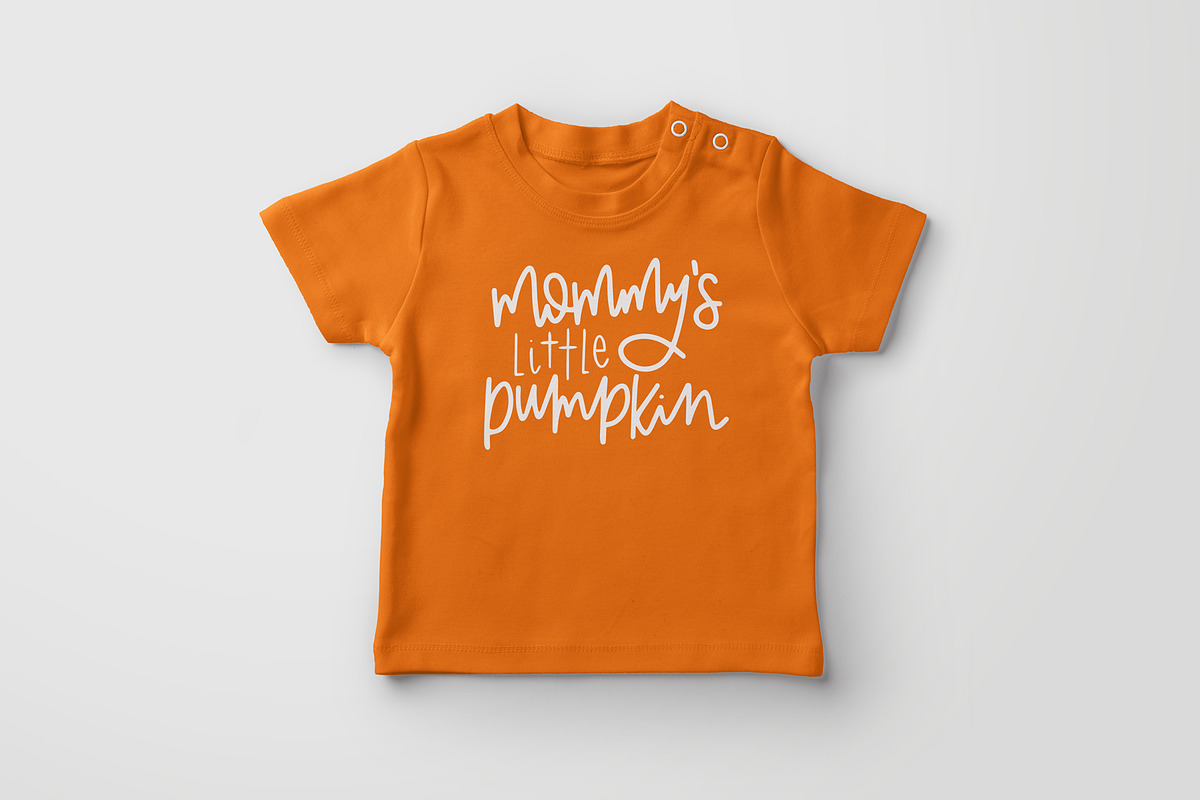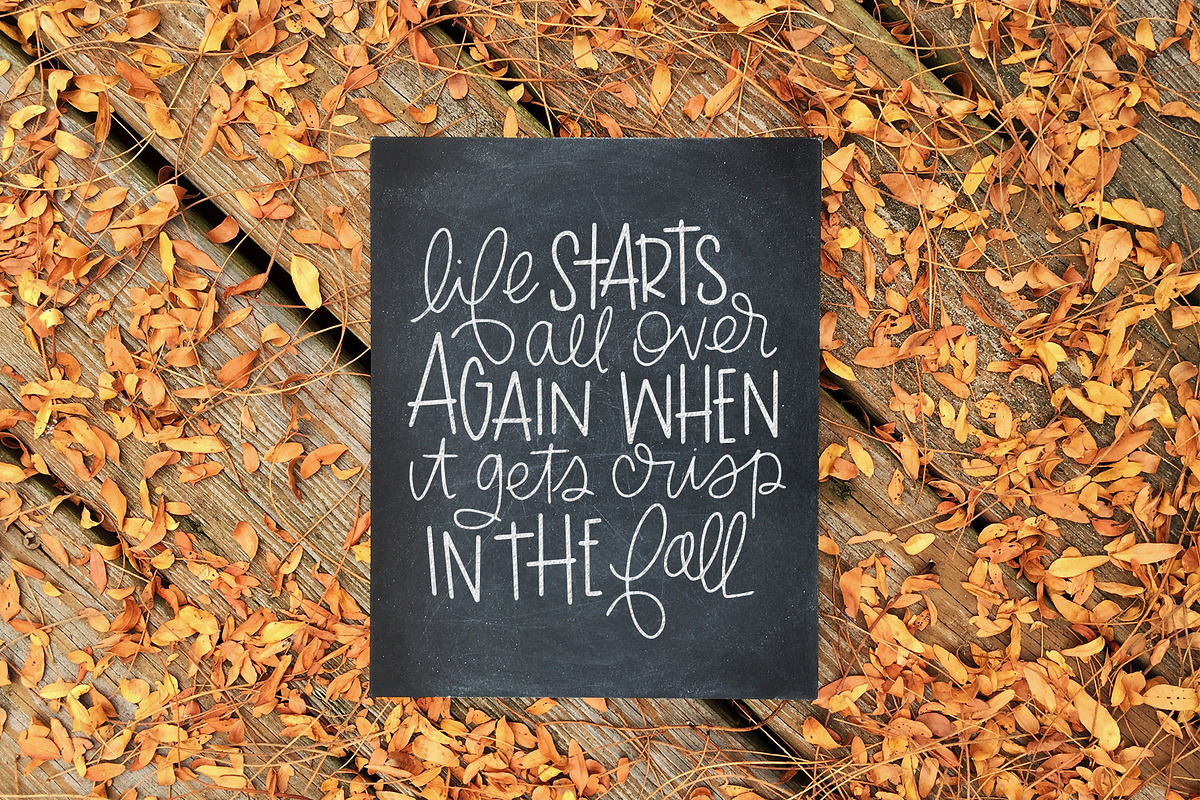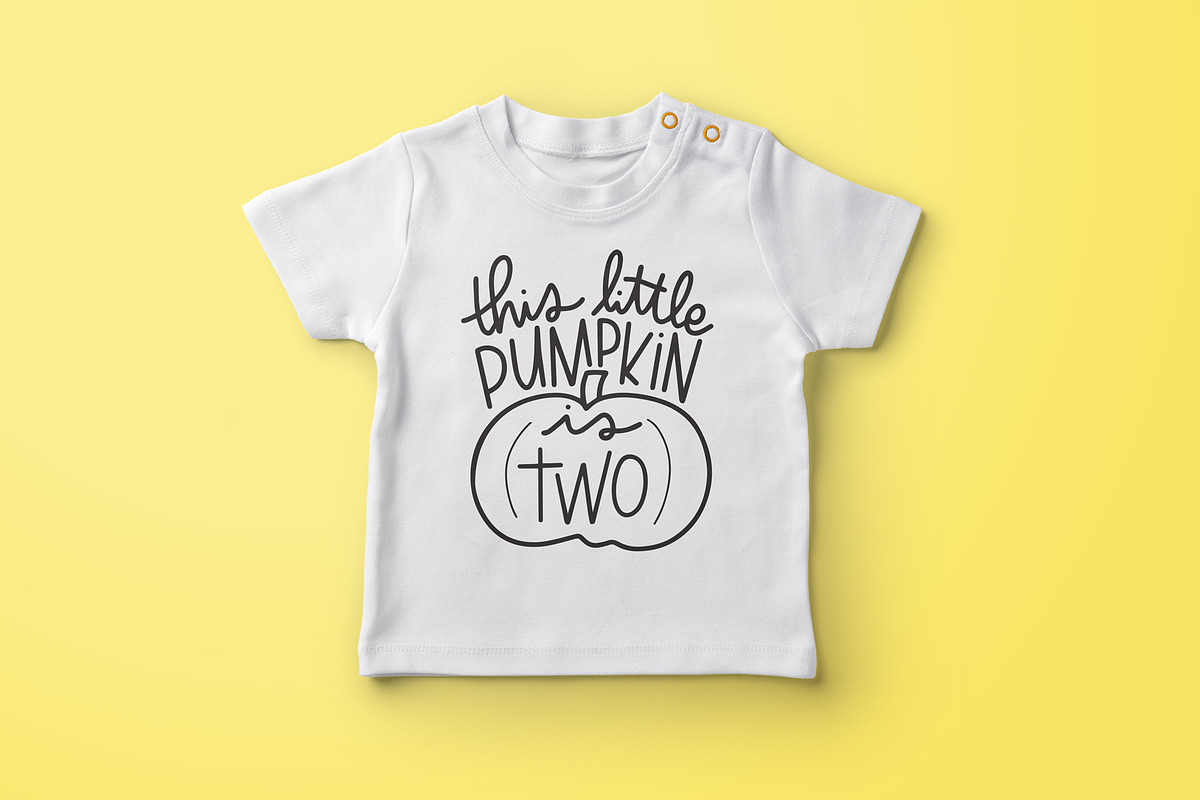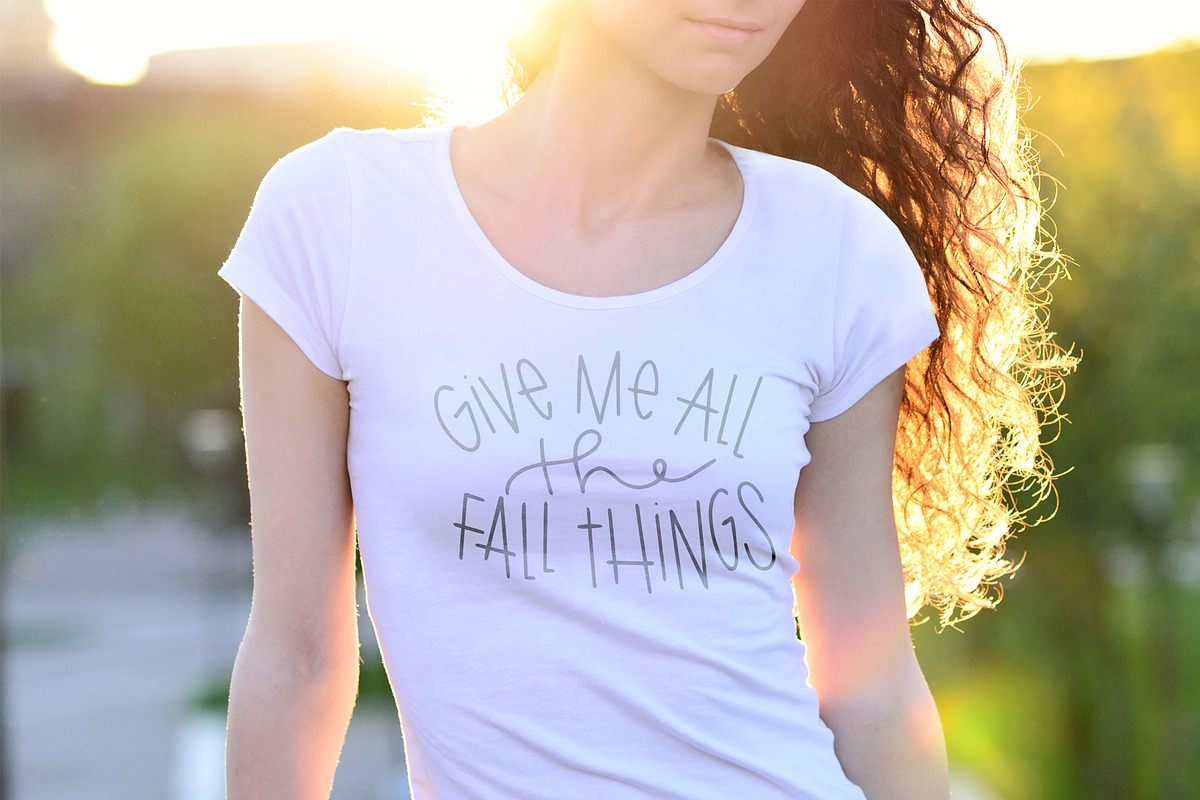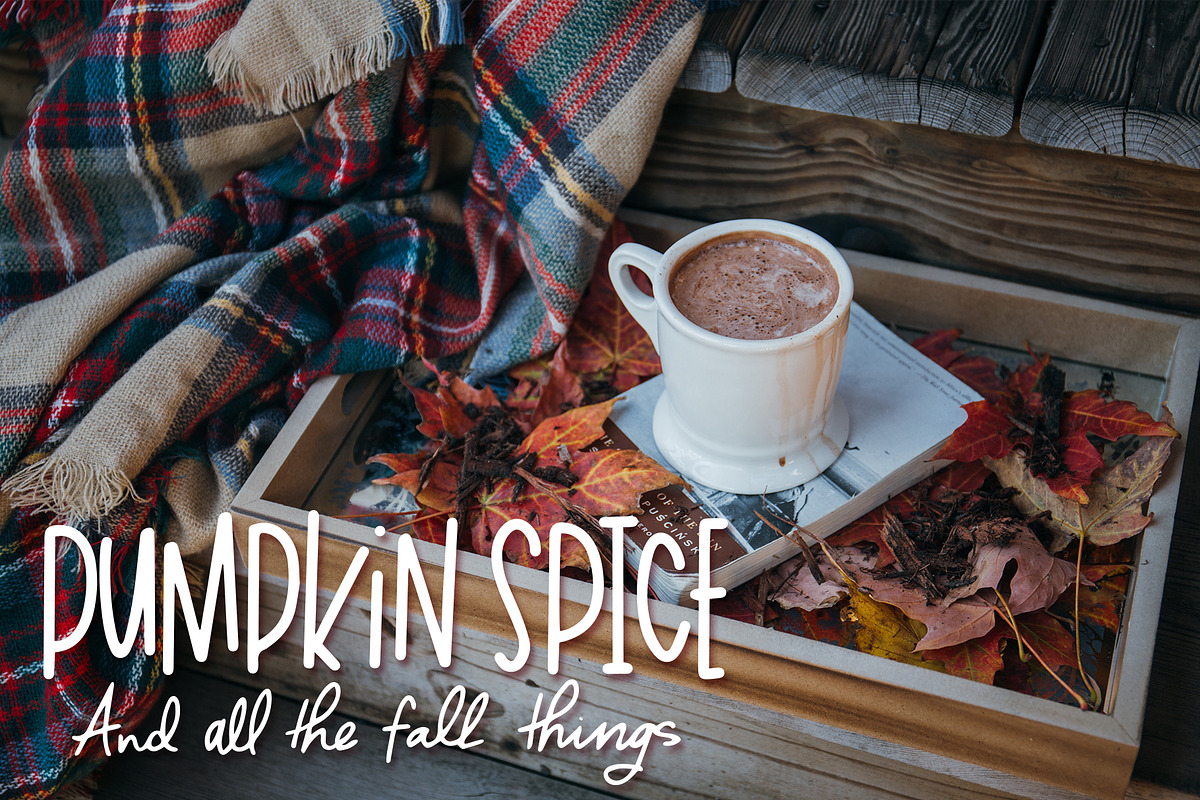
Fall Phrases Font
56 Hand Lettered Fall Phrases! These are great for crafters to use on hand painted wood signs, shirts, bags, cards, fall prints for decoration, fall family photos, anything you can dream up!
This is a symbols font! So all you have to do is type letters A-Z (uppercase & lowercase) and numbers 1-4 and you will get a hand lettered fall phrase! I have also included each fall phrase as a separate PNG file.